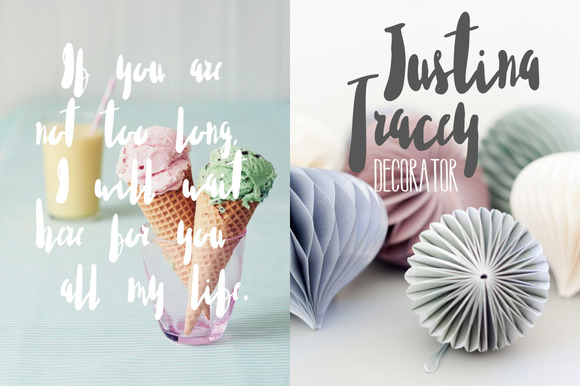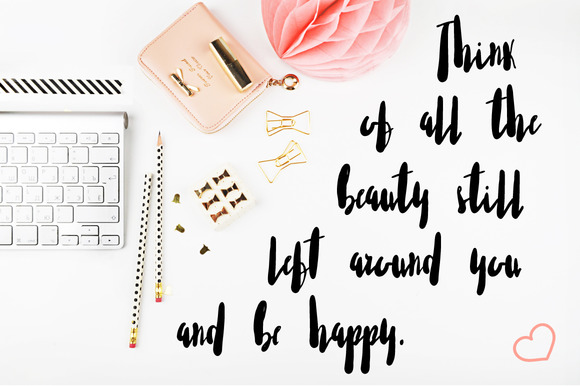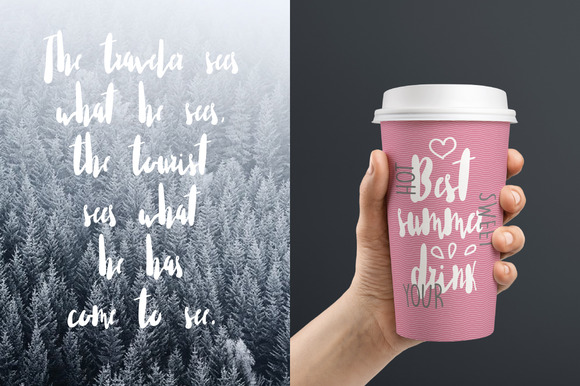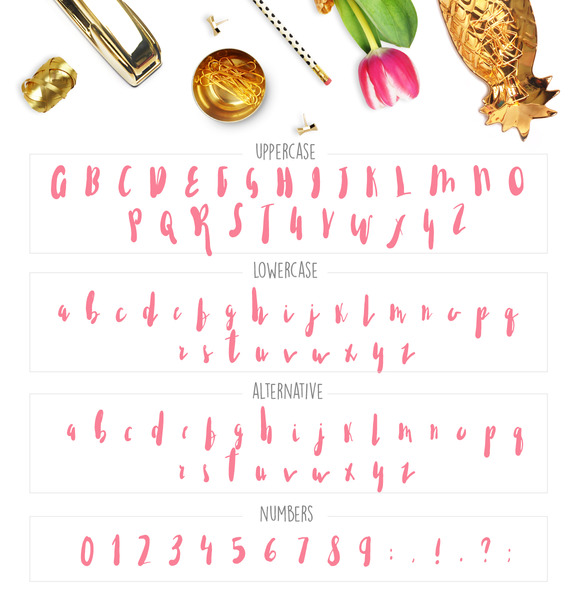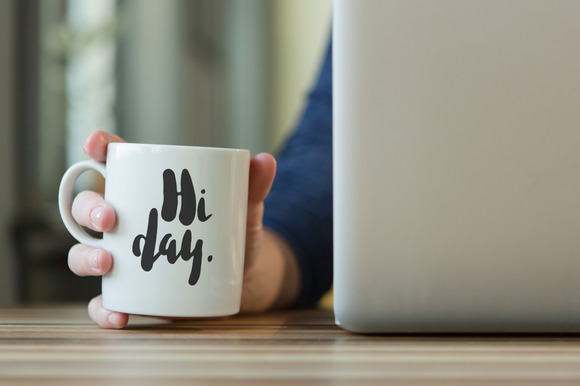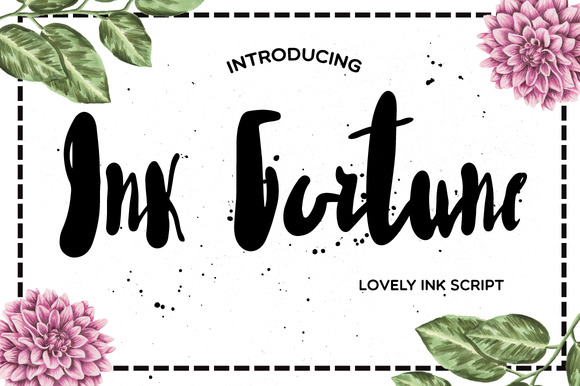
Ink Fortune Font
It’s hand lettered and modern script font. The script comes with alternative letters.
This fonts are perfect for your blog or postcard for wedding. Also with their help, you can create a logo or beautiful frame for your home. Or just use for your small business, book covers, stationery, marketing, magazines.